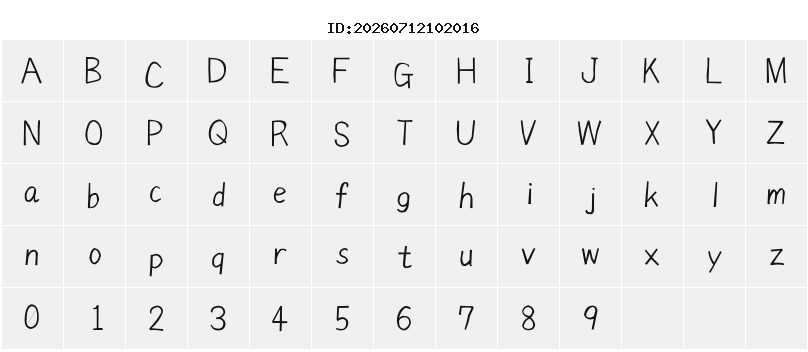
Manjiro'sHw21 Preview
About Manjiro'sHw21.ttf
Manjiro'sHw21.ttf is a modern, elegant sans-serif font designed for ultimate readability and visual harmony. Perfect for branding, headlines, web design, and print materials.